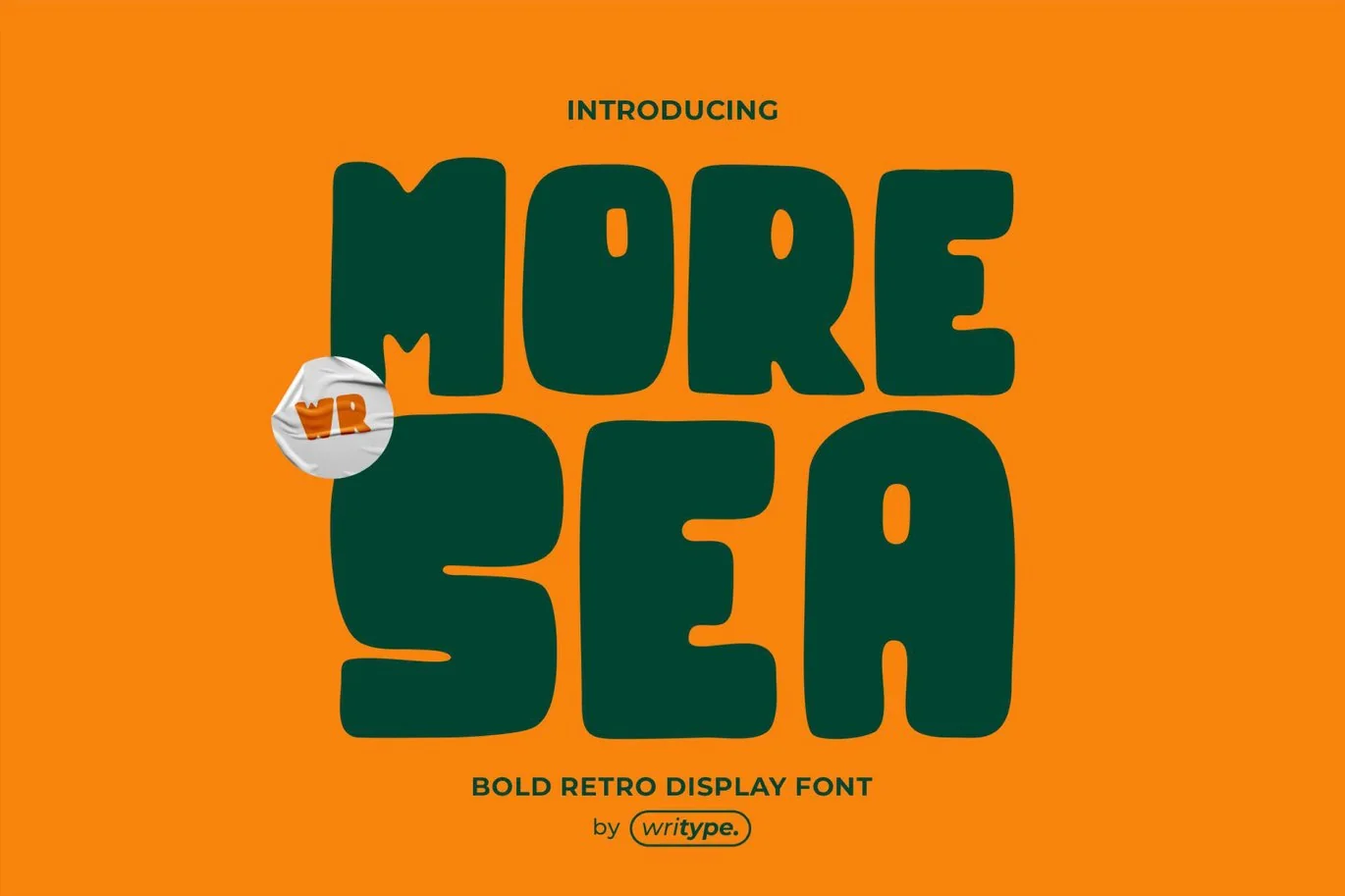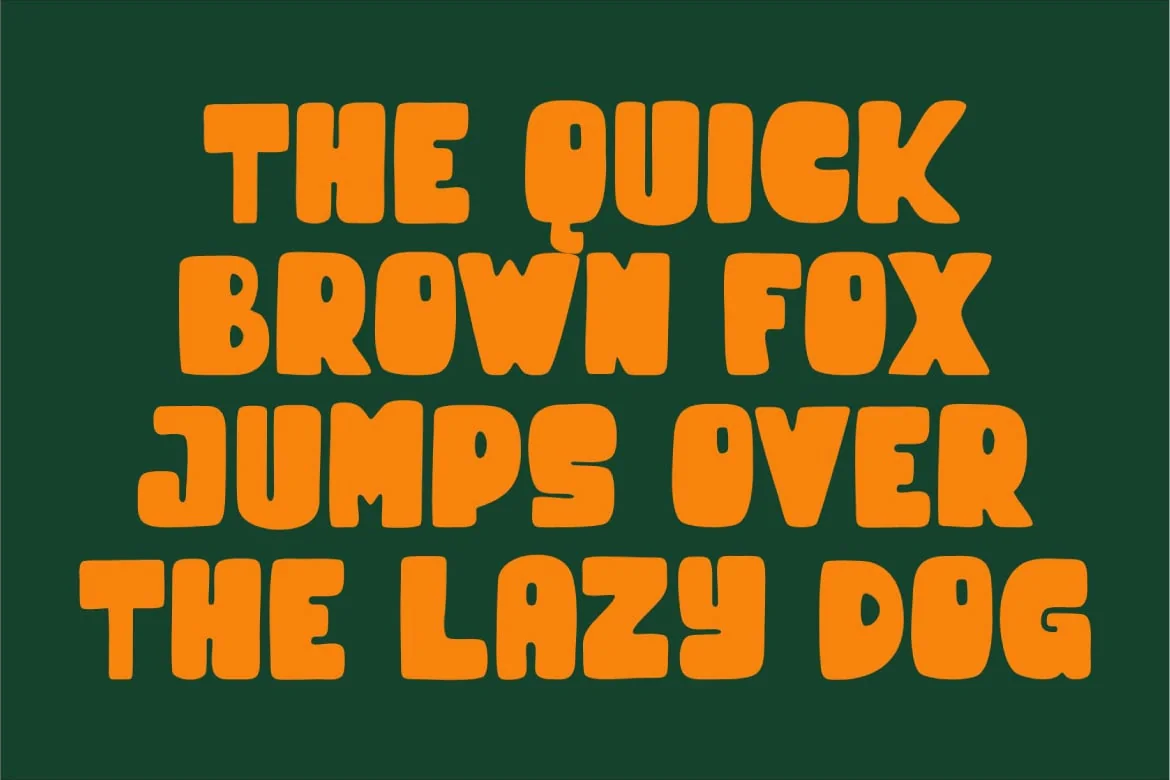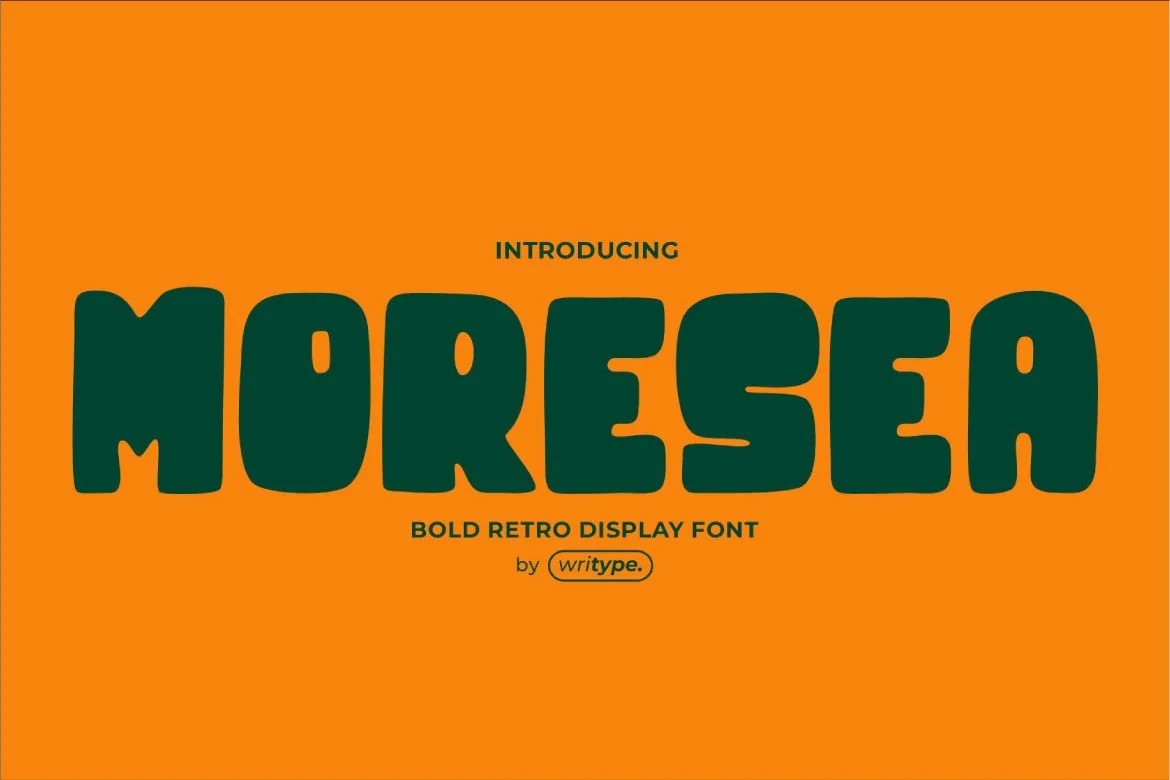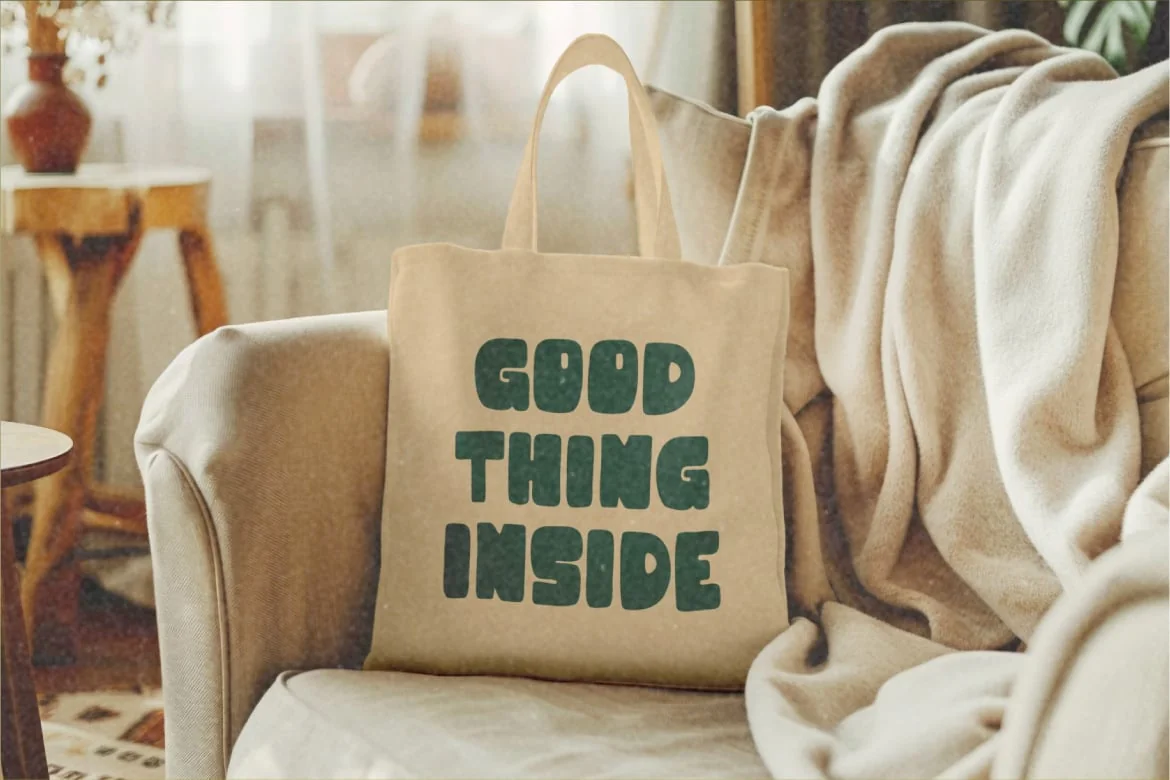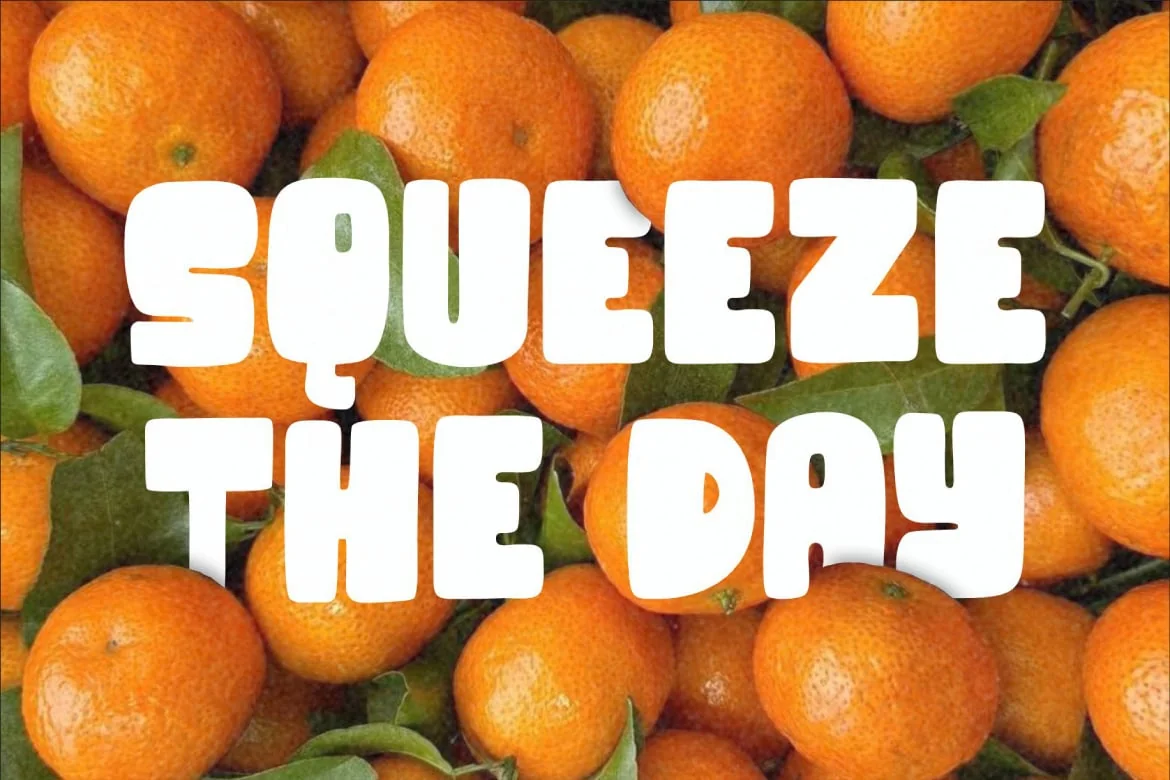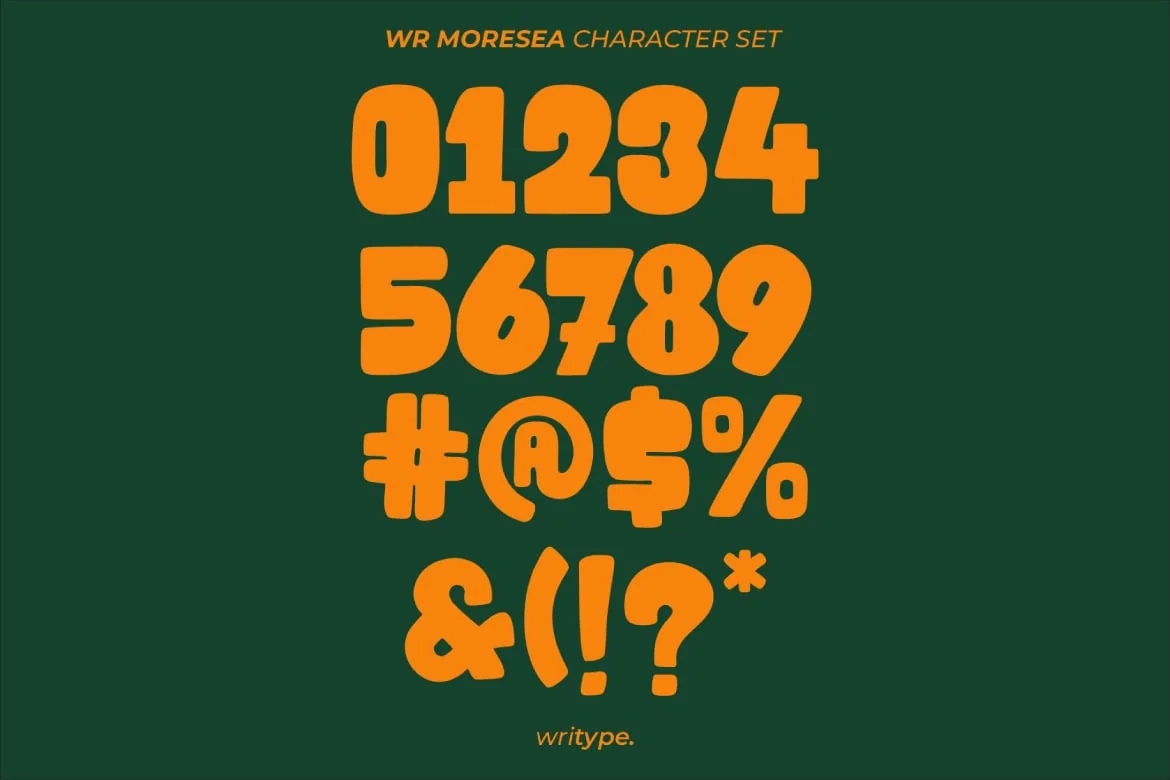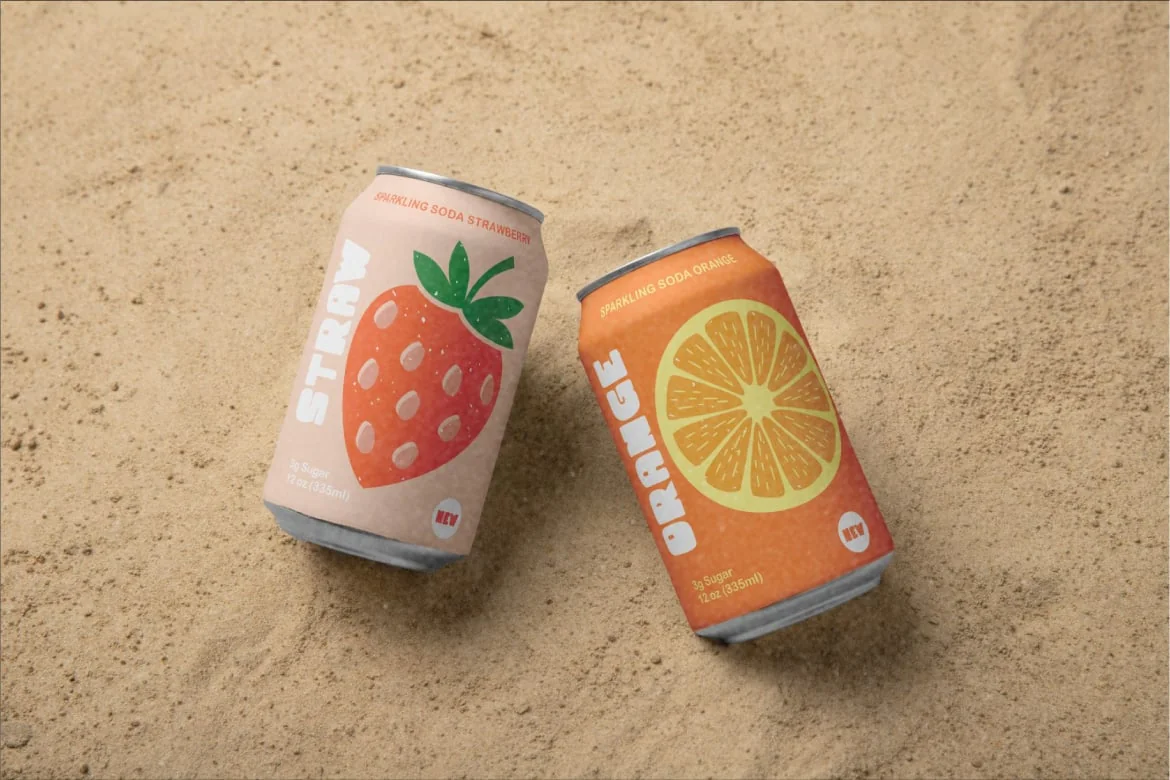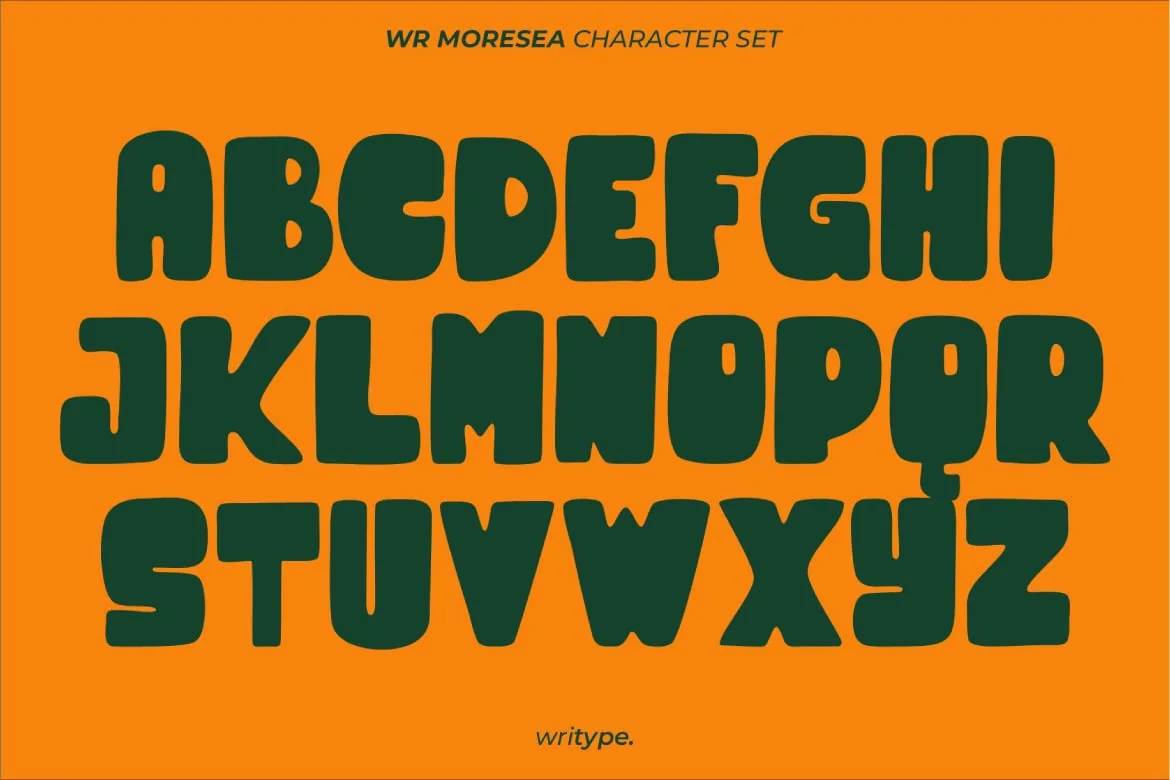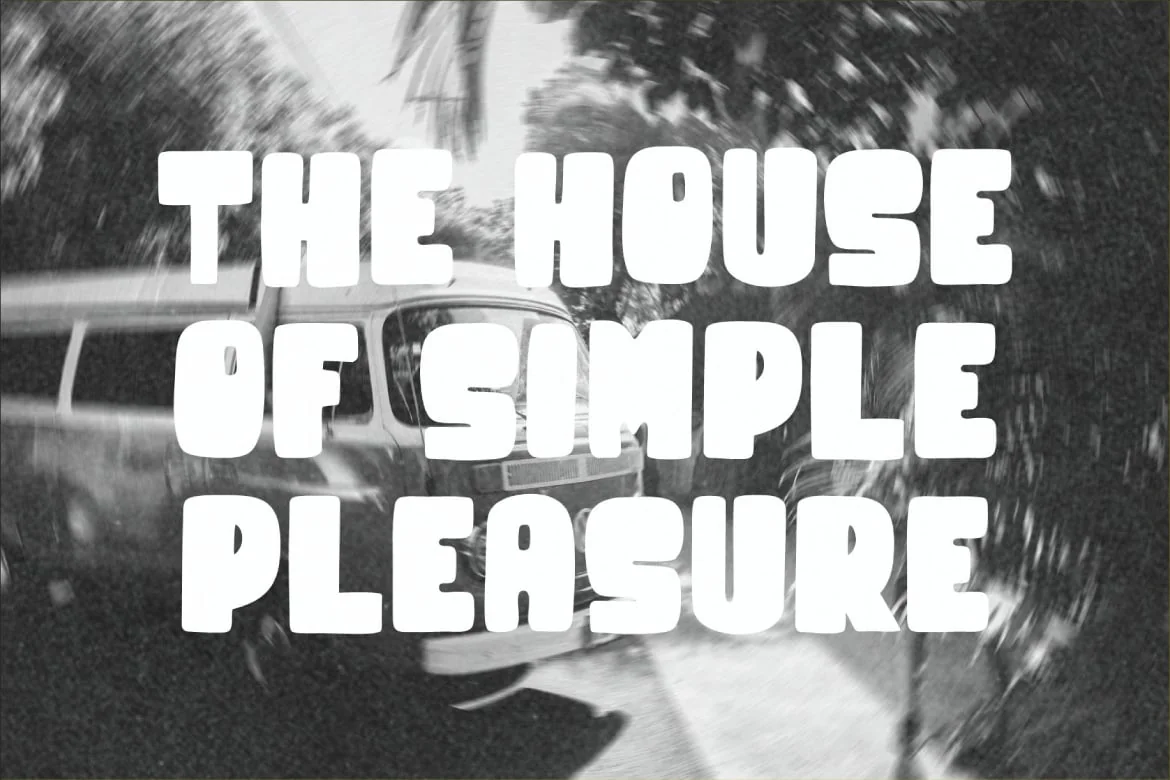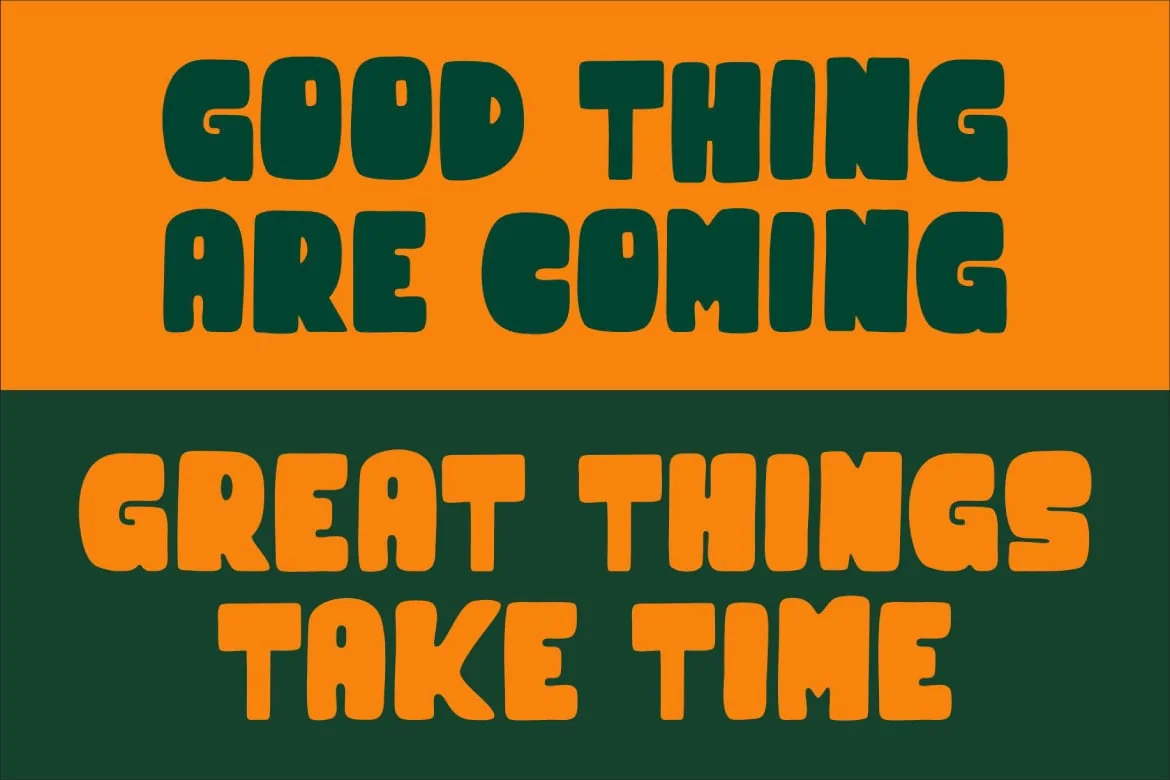
Morsea – Handdrawn Bold Font
WR Morsea – Handdrawn Bold Font by WriType
WR Morsea is a bold hand-drawn font with strong character and expressive strokes. Perfect for branding, logos, posters, and designs that need a daring touch. Thick, dynamic, and full of personality, it brings a powerful presence to any project.